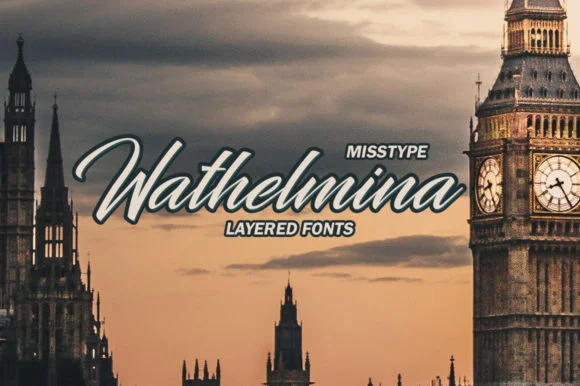
Wathelmina Font
About Wathelmina Font
Wathelmina is a beautiful, modern calligraphy font. It comes with several alternatives that make the font look sweet and elegant.